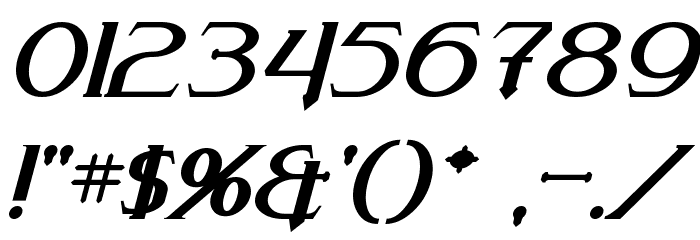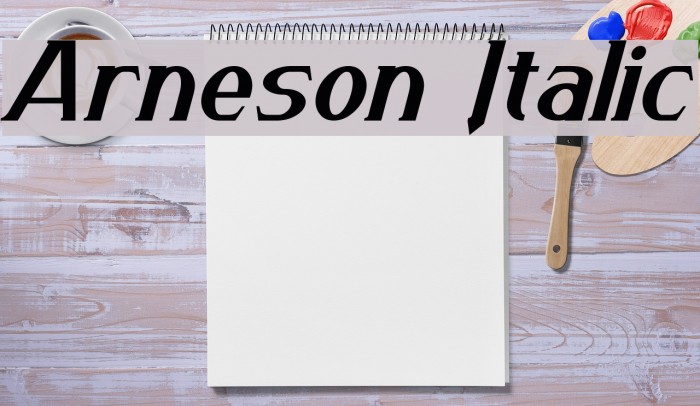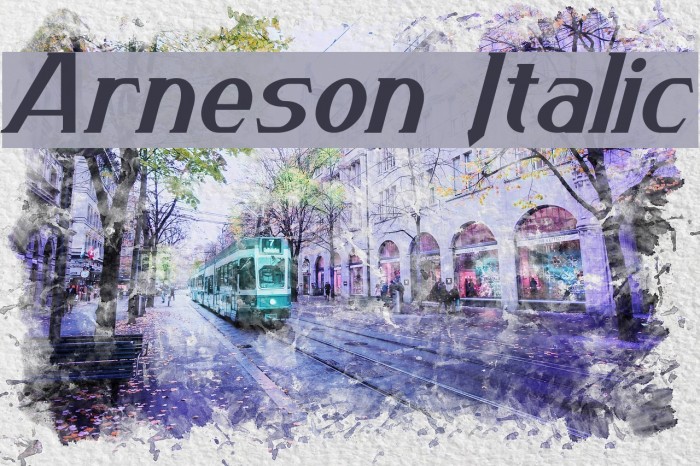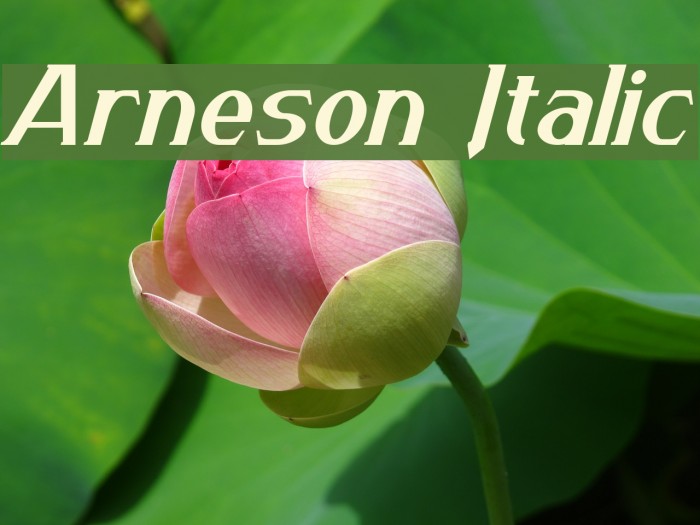
Arneson Italic Font
This font features a dynamic and expressive italic style, characterized by its sharp, angular strokes and distinctive slant. The uppercase letters exhibit a bold presence with unique serifs that add a touch of elegance. The lowercase letters maintain a consistent flow, enhancing readability while retaining a stylish flair. Numbers are crafted with precision, offering a harmonious blend with the alphabet. Special characters are thoughtfully designed, ensuring versatility across various applications. The overall design conveys a sense of movement and sophistication, making it suitable for creative and impactful designs.
A dynamic italic font with sharp angles and elegant serifs.
- Proposed Projects: Ideal for branding, editorial design, and artistic projects requiring a bold and stylish typeface.
- Use Case: Headlines, Logos, Editorial Design